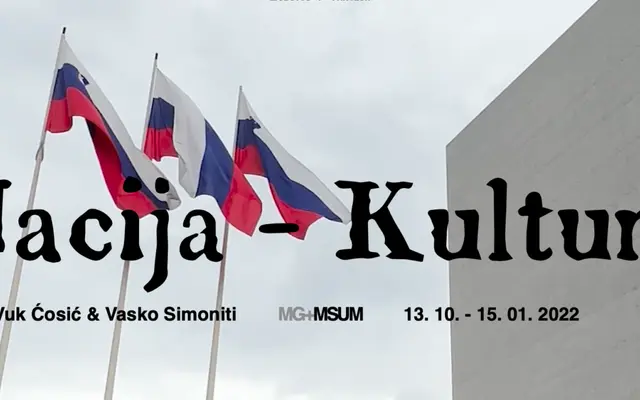
Sonetni Venez
A type revival drawn from the 1834 first printing of France Prešeren's Sonetni venec, with five glyph variants per character simulating the natural variation of lead type on paper.
Designed for Vuk Ćosić's Nacija – Kultura project, exhibited at MG+MSUM Ljubljana, the typeface lifts its forms directly from the original 1834 newspaper printing of Prešeren's Sonetni venec. Each glyph carries five distinct variants that cycle through the line so that no two identical forms appear consecutively, capturing the impression variance of letterpress. The font was used to generate a new-age sonetni venec from Twitter posts by Slovenian politicians, tying typographic authenticity to contemporary political satire.
The letterforms are drawn from the first edition of Prešeren's Sonetni venec, published in 1834 in Ilirisches Blatt, placing this firmly in the historical revival category with a serif character consistent with early 19th-century printing types.